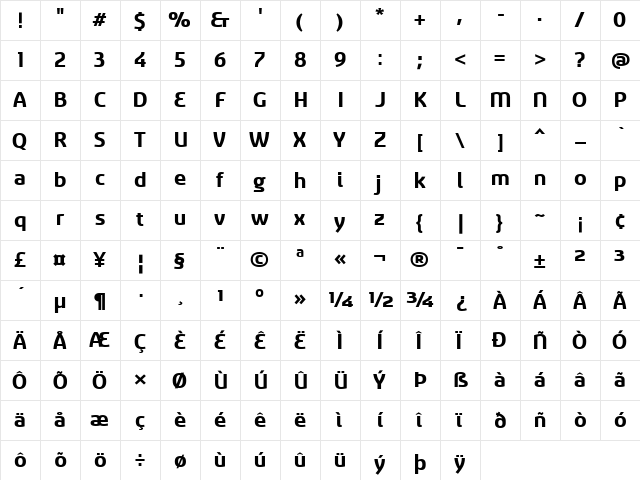
Sancoale Bold
| Foundry | Jeremy Dooley |
Design Context for Sancoale Typeface
Sancoale offers clean, dependable letterforms without strong stylistic allegiance, making it a practical choice for designers who need flexibility. Its bold stroke weight gives it real presence on the page.